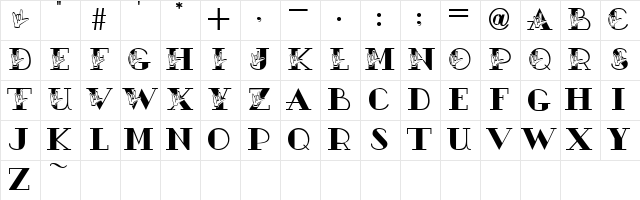
Complete JLR ASL ILY Regular glyph index. Displaying only characters natively supported by JLR ASL ILY Regular font.
JLR ASL ILY is a composed and adaptable typeface that performs quietly and consistently across a wide range of design contexts.